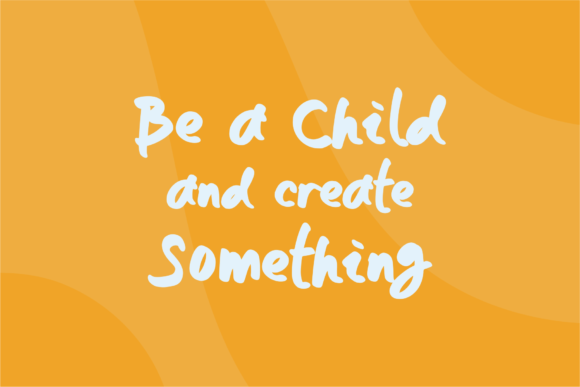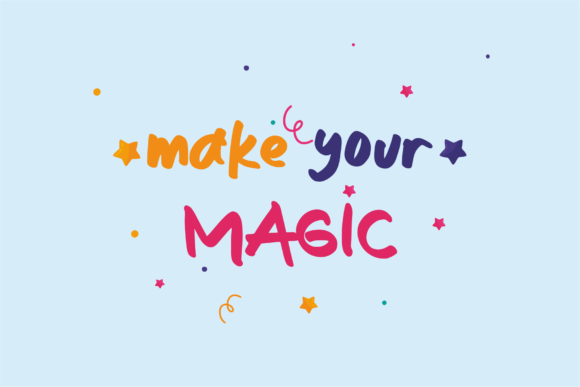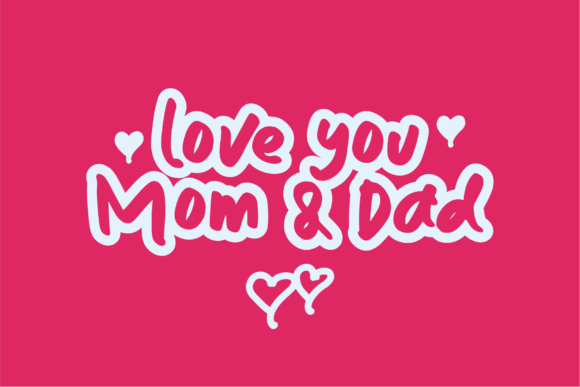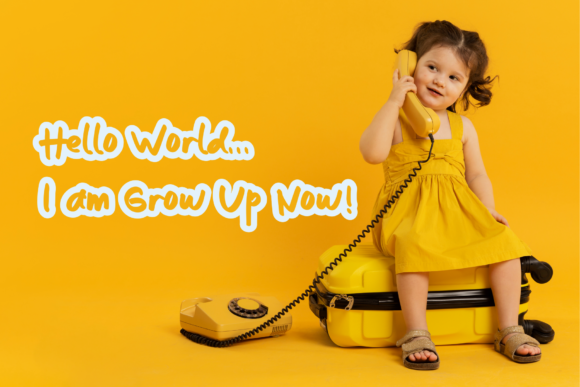
Botes Frica Font
About Botes Frica Font
Botes Frica is a cute and joyful handwritten font. Fall in love with its incredibly versatile style and use it to create gorgeous wedding invitations, beautiful stationary art, eye-catching social media posts, and much more!